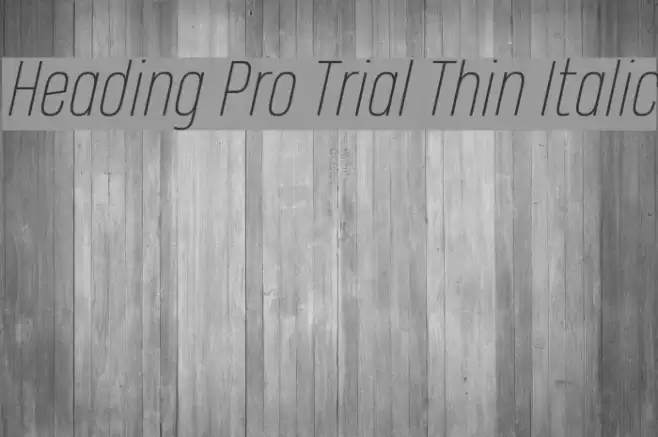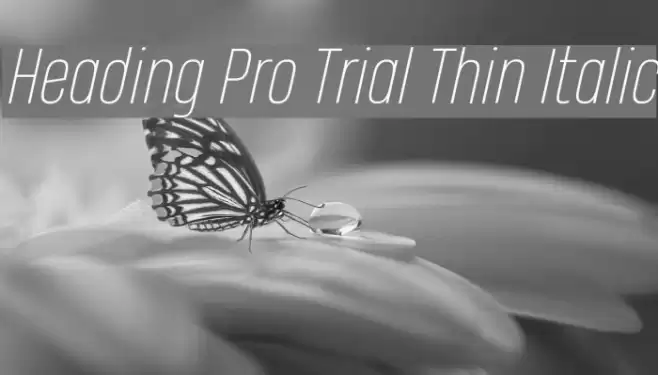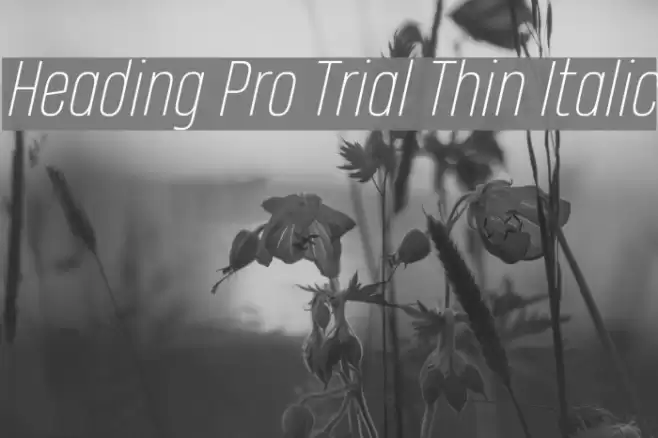
Heading Pro Trial Thin Italic Font
Heading Pro Trial Thin Italic Description
This font features a sleek and modern design with thin, elongated letterforms that convey elegance and sophistication. The italic style adds a dynamic and fluid touch, making it suitable for contemporary and stylish applications. Its clean lines and minimalistic appearance ensure readability while maintaining a distinctive character. The font's narrow width and tight character spacing contribute to its refined and polished look, ideal for projects that require a touch of modernity and class.
A sleek, modern, thin italic font with elongated letterforms from Uncategorized fonts.
- Proposed Projects: Ideal for fashion magazines, luxury branding, modern websites, and elegant invitations.